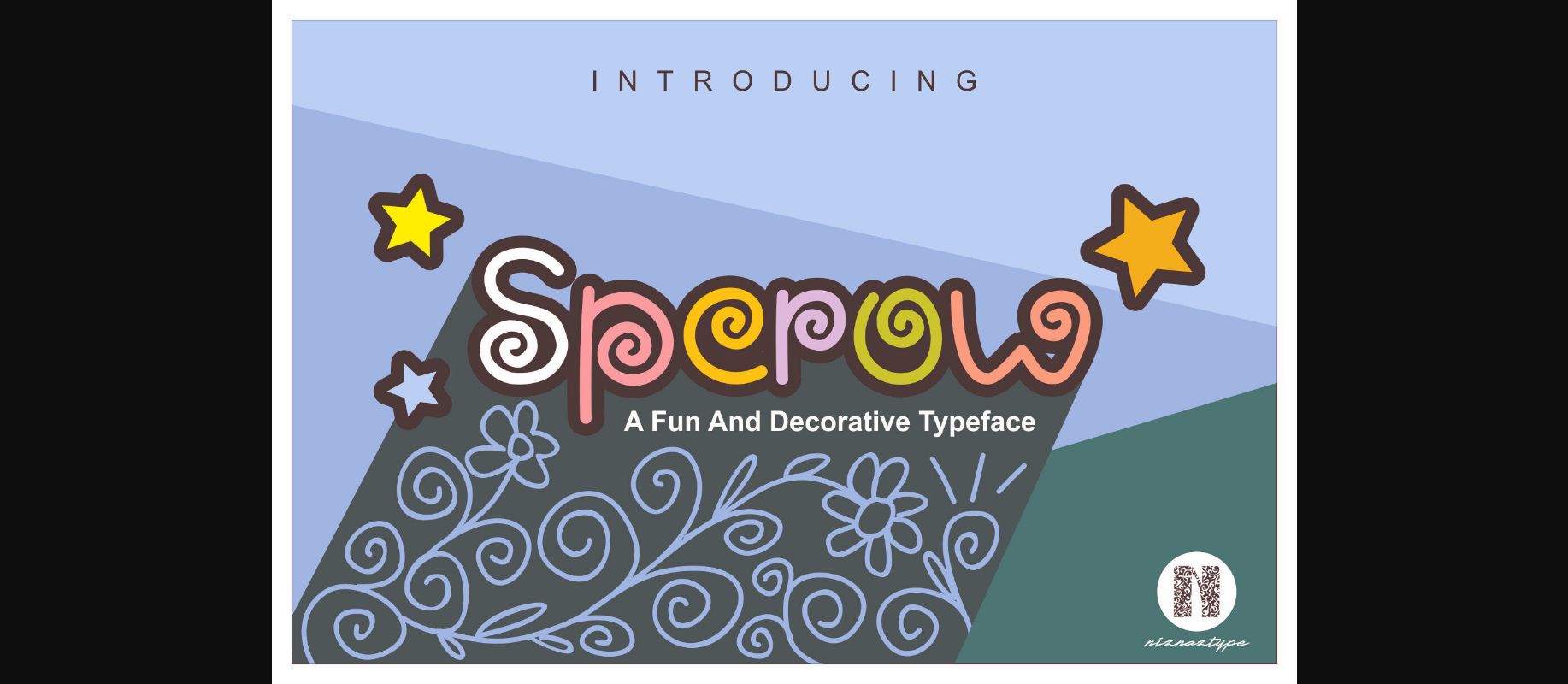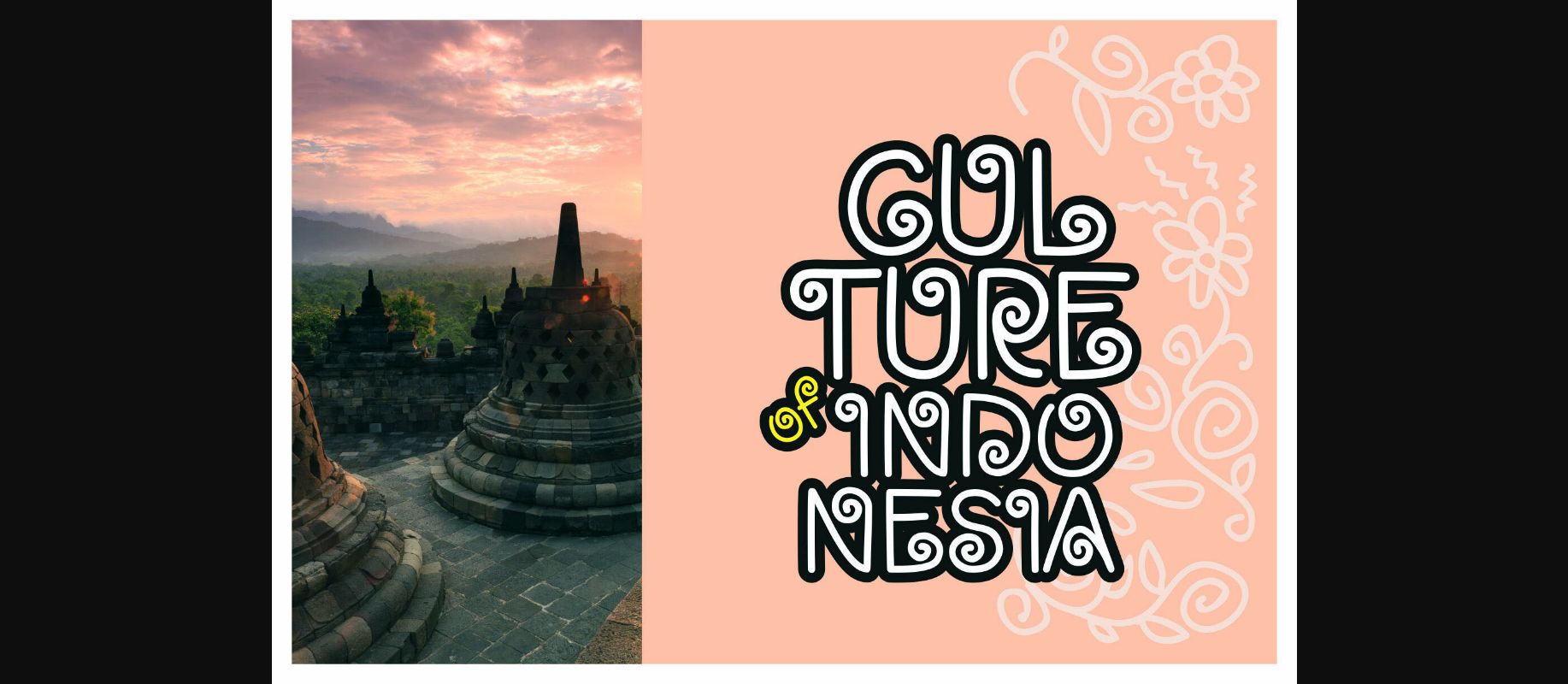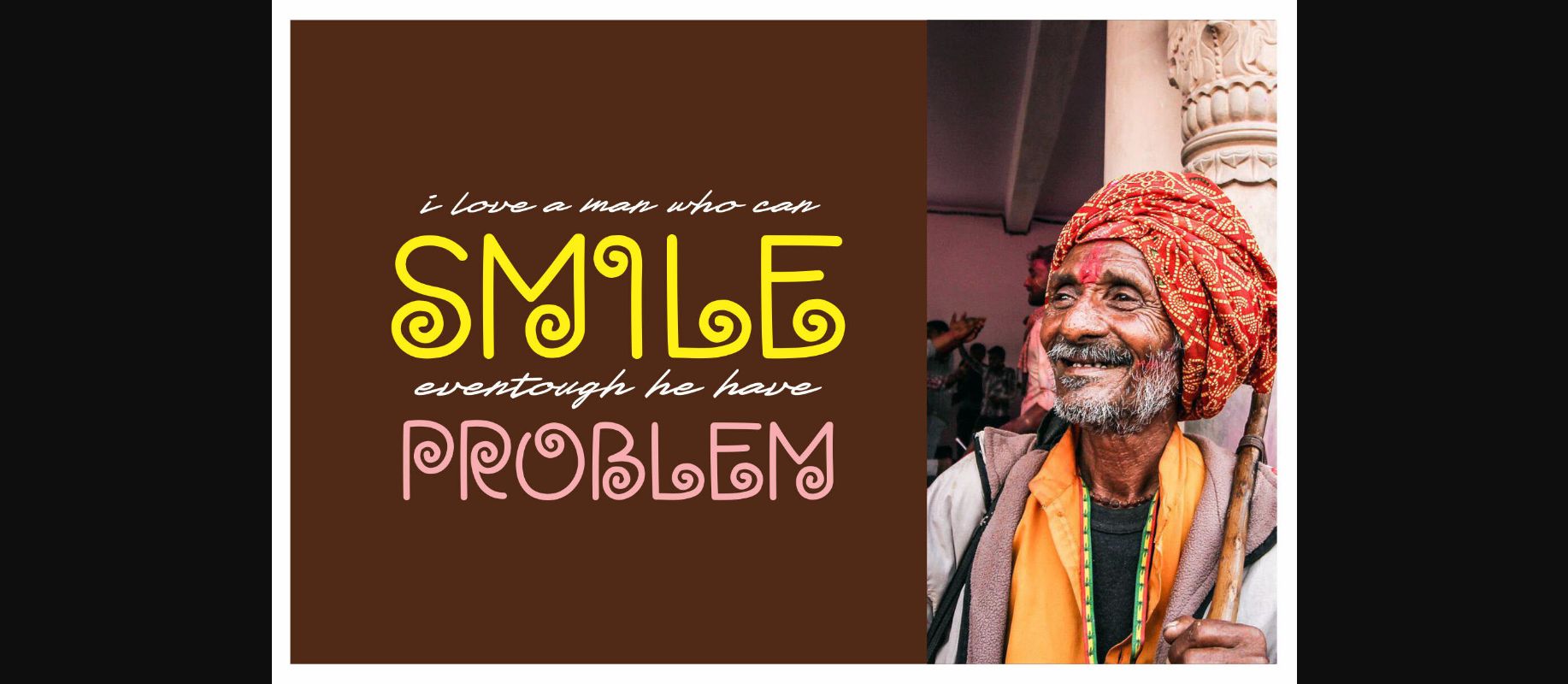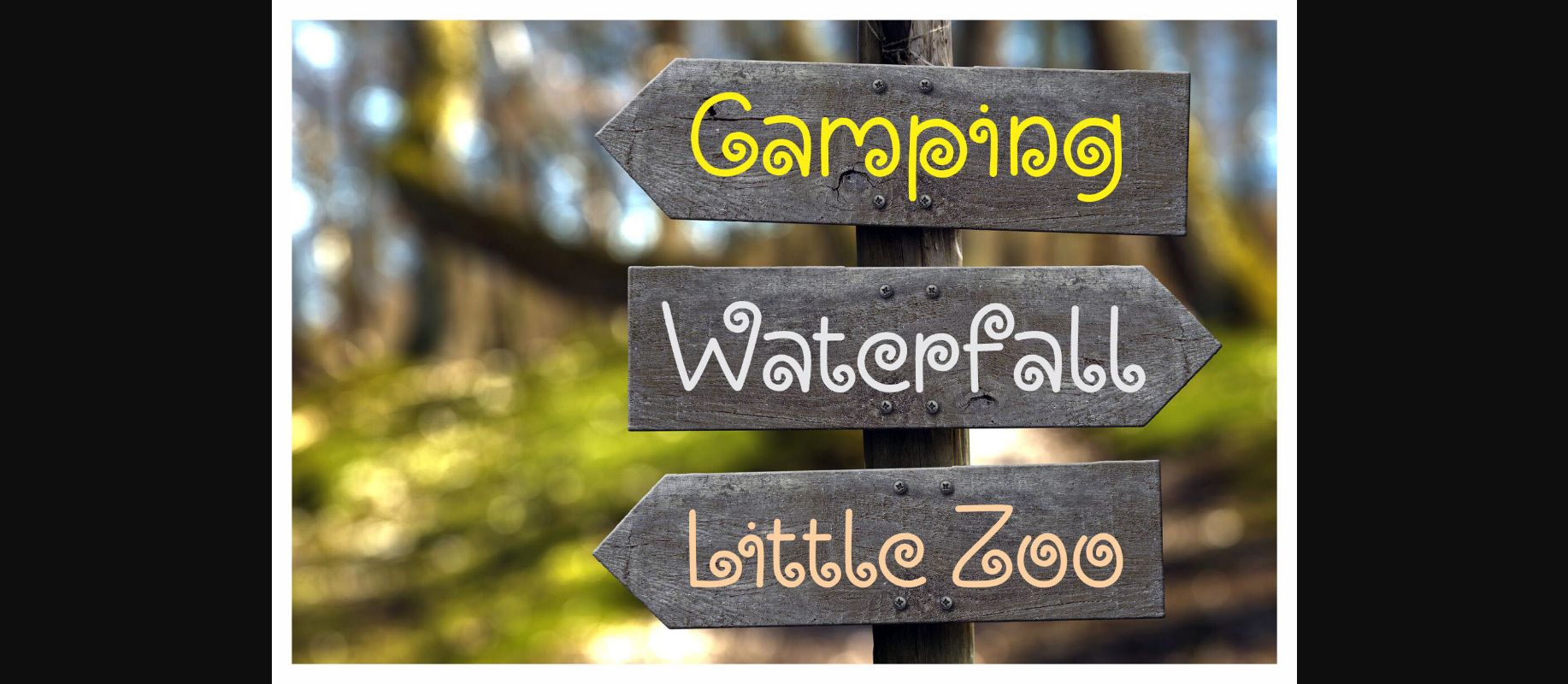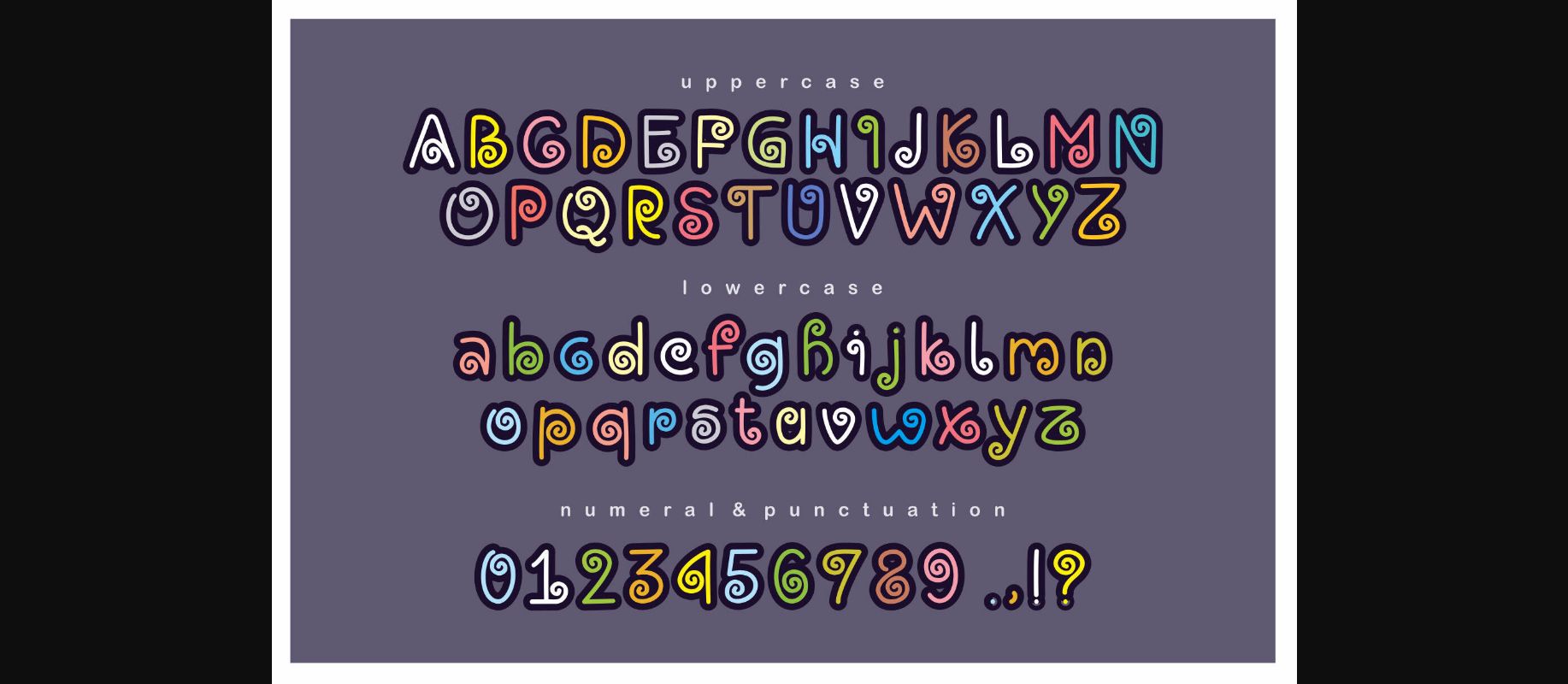
Sperow Font
About Sperow Font
Introducing a fun and decorative typeface. Its name is SPEROW Font. Sperow font was created with simple and rounded style characters in each glyph. Sperow font has a unique style. This font is very suitable for graphic designs that take culture, tourism, or art themes.
Flyers, magazines, titles of products, t-shirts, posters, or wall paintings are very good to use Sperow Font and reach uniquely the graphic characteristics. Also, Sperow font can used for kids and children styles. Such as the cover of books, ballon text in comics, kids’ t-shirts, birthday alphabet ornament, and others.